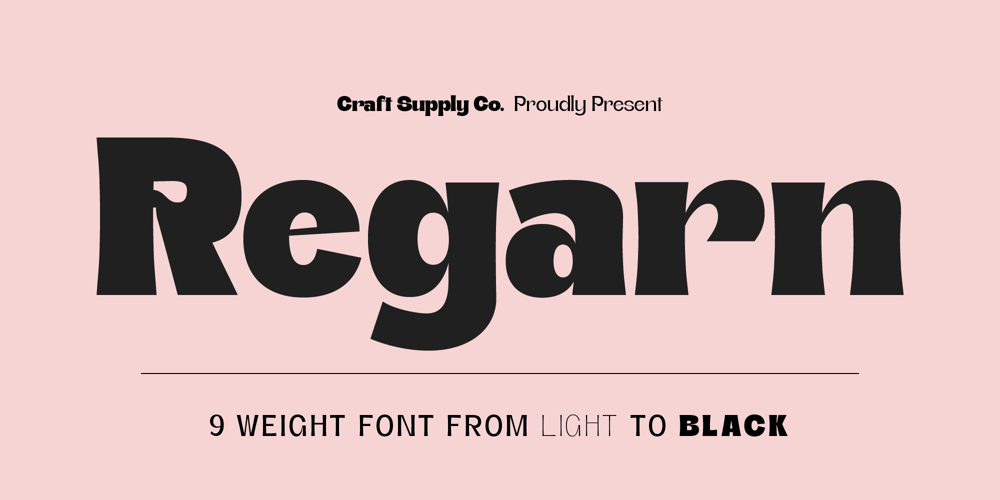
Regarn Font Family was designed by Trio Nazzar Saputra and published by Craft Supply Co. Regarn contains 9 styles and family package options. Regarn Font Family is a sans serif font with 9 weight options to choose from thin to black, Regarn is versatile enough for any type of project. Whether you’re a designer looking for a new font to add to your collection, or just need some basic text fonts on hand, Regarn has you covered.